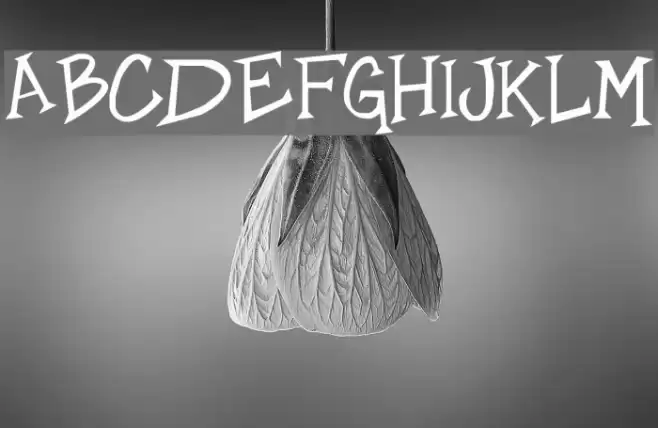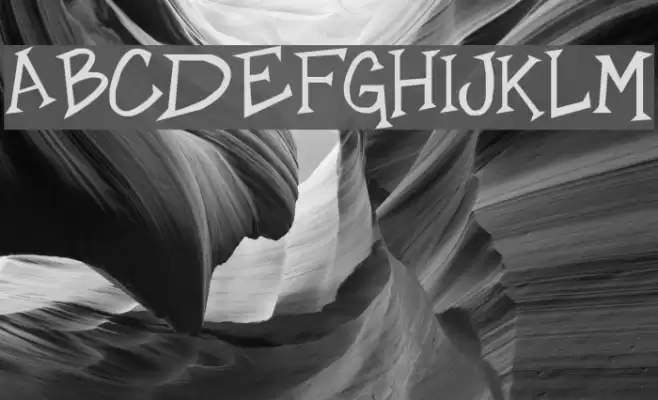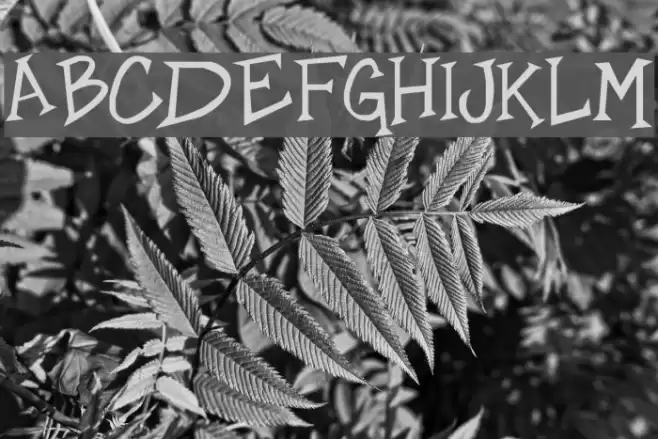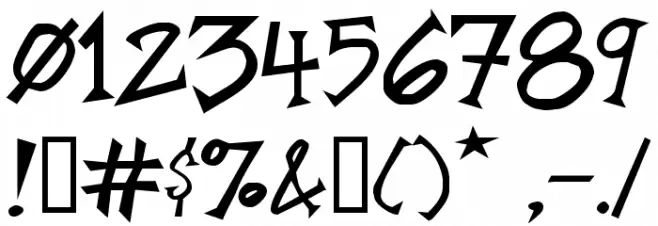
Speed Demon Font
Speed Demon Description
This font features a dynamic and energetic style with sharp, angular edges and a slightly irregular baseline, giving it a hand-drawn appearance. The uppercase letters are bold and commanding, while the lowercase letters maintain a playful yet edgy look. Numbers and special characters follow the same energetic design, making them stand out. The overall aesthetic is reminiscent of a rebellious, graffiti-inspired style, perfect for projects that require a bold and unconventional look.
A dynamic, edgy font with sharp angles and a hand-drawn feel from Uncategorized fonts.
- Proposed Projects: Ideal for music album covers, skateboarding brands, streetwear designs, and event posters.
- Overall Style: Modern, Graffiti